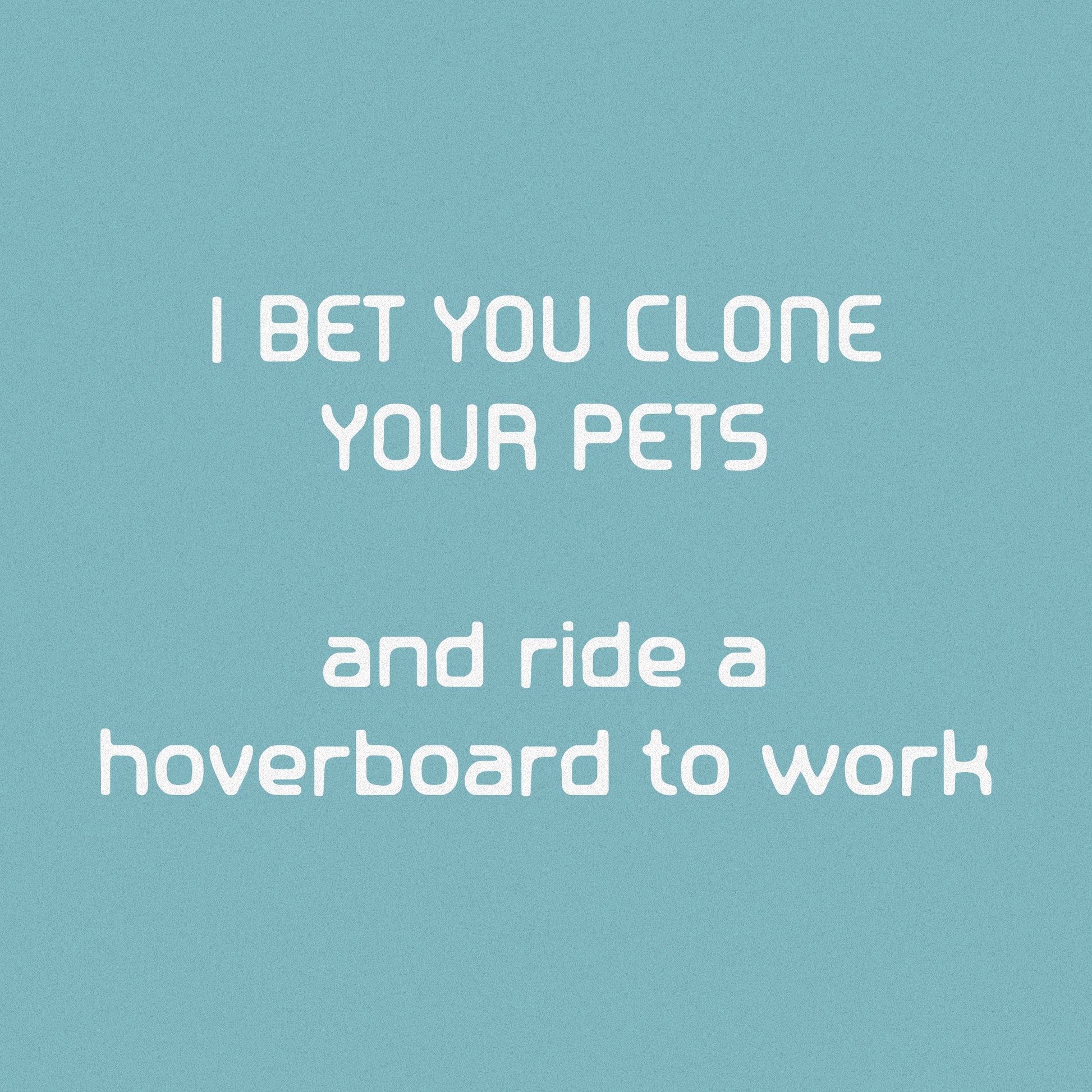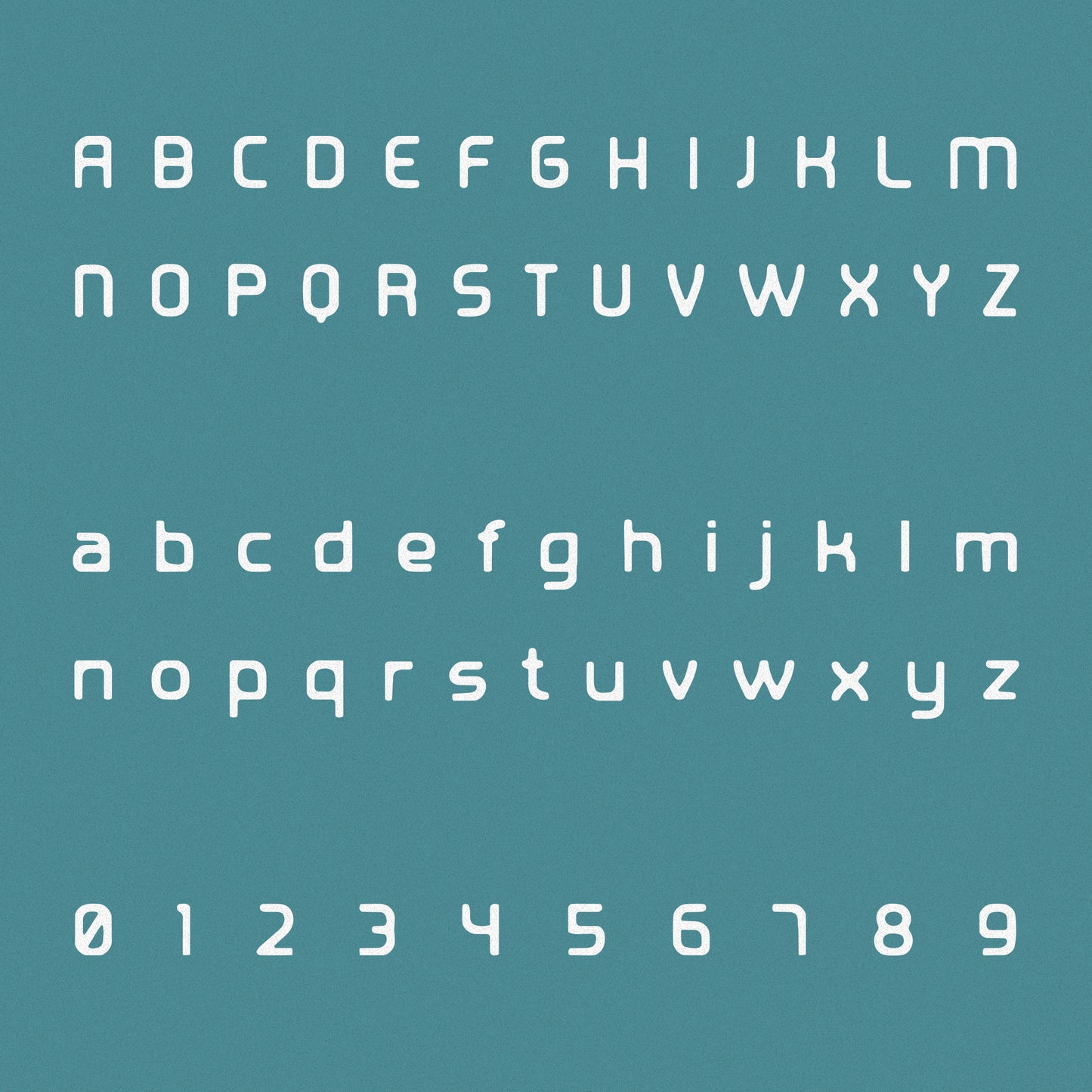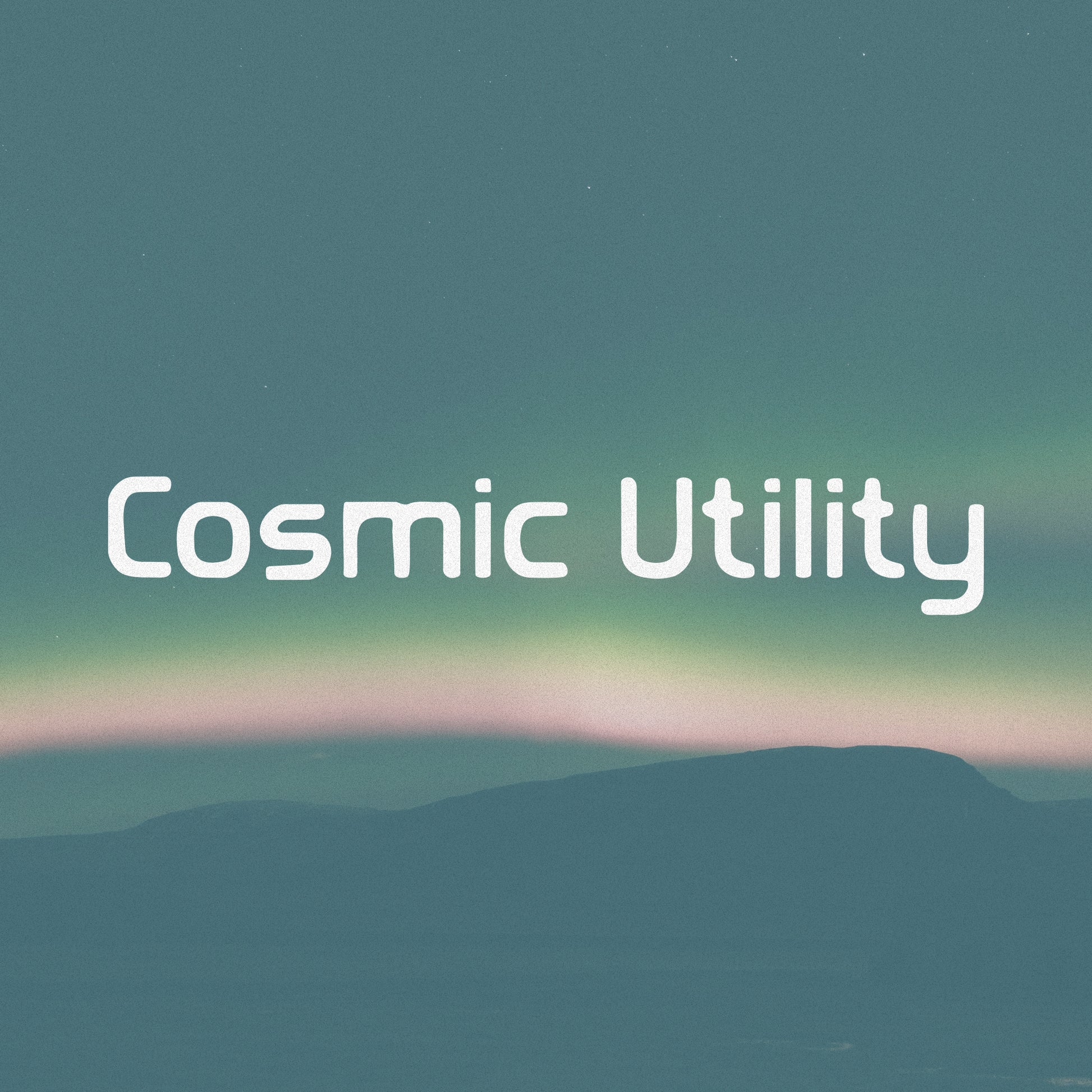
Cosmic Utility Font
Cosmic Utility is a hand drawn display font, available in upper case, lower and numbers. It is inspired by 1980's sci-fi ephemera and OMNI magazine.